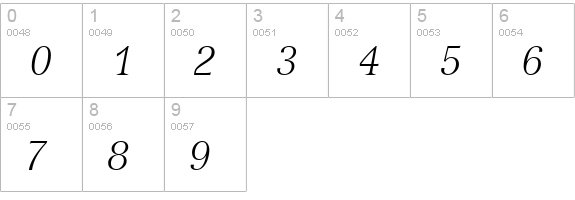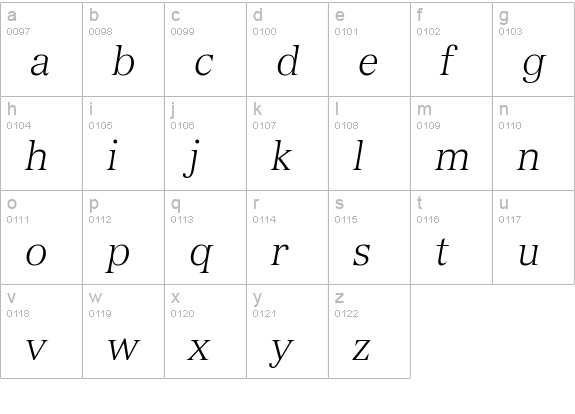
Nuance Light SSi Light Italic Font Details
Nuance Light SSi Light Italic is a refined, elegant, italic variant in the Nuance typeface family \xE2\x80\x94 well suited to elegant body text, refined sub-headings, and luxury branding.
Nuance Light SSi Light Italic font is a beautifully crafted typeface that exudes elegance and sophistication. Its delicate and stylish italic design adds a touch of modernity to any project, making it perfect for use in branding, editorial design, and more. The gentle curves and graceful strokes of this font give it a refined and contemporary feel that will elevate your designs to new heights. What makes Nuance Light SSi Light Italic font even more appealing is that it is available for free download at FontsMarket.com. This means that you can easily access this stunning typeface without any cost, making it a valuable addition to your font library. Whether you're a designer looking to add a touch of flair to your projects or a creative professional in need of a versatile typeface, Nuance Light SSi Light Italic font is sure to impress with its beauty and versatility. Download it today and unleash your creativity with this exquisite font.